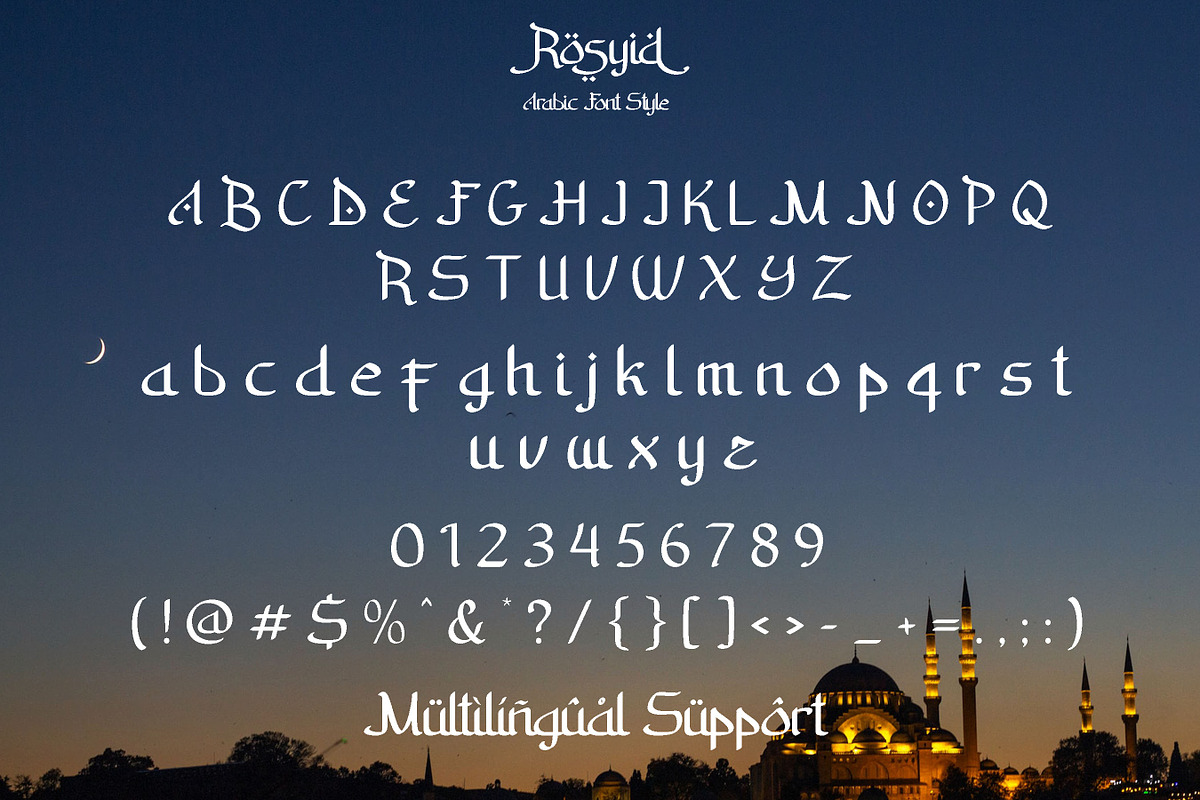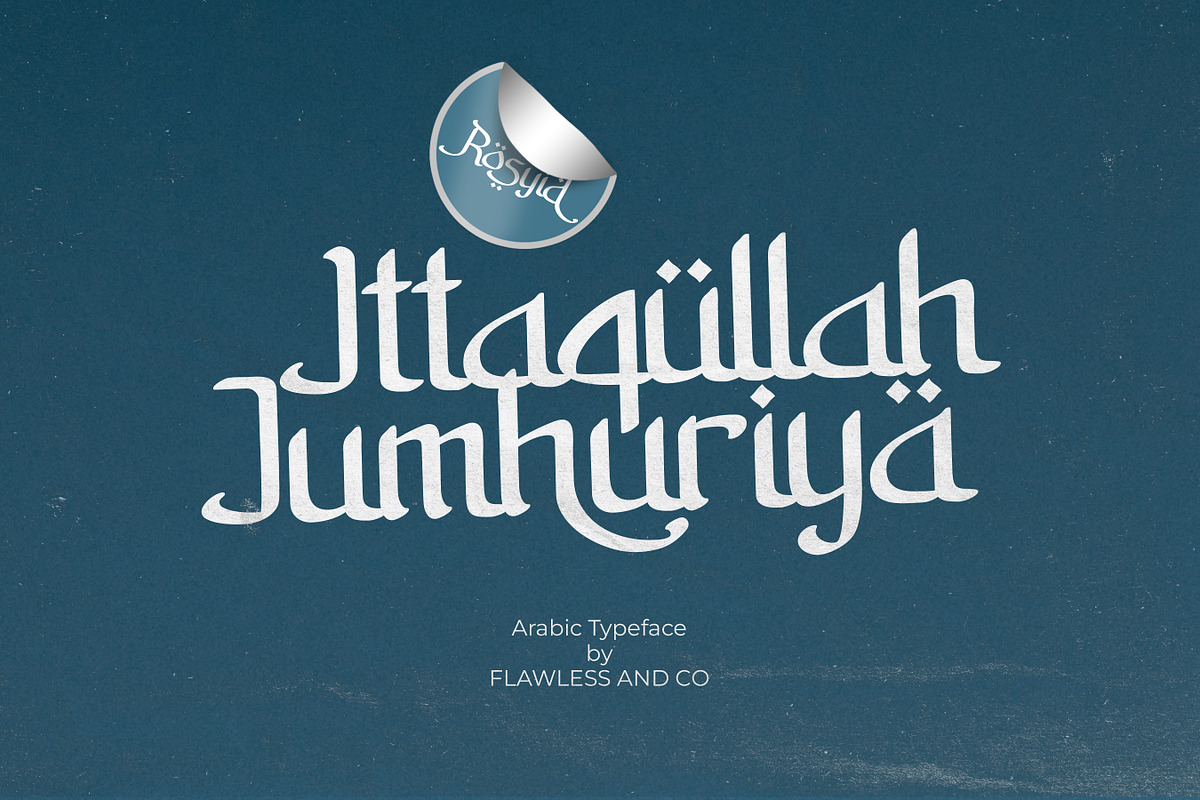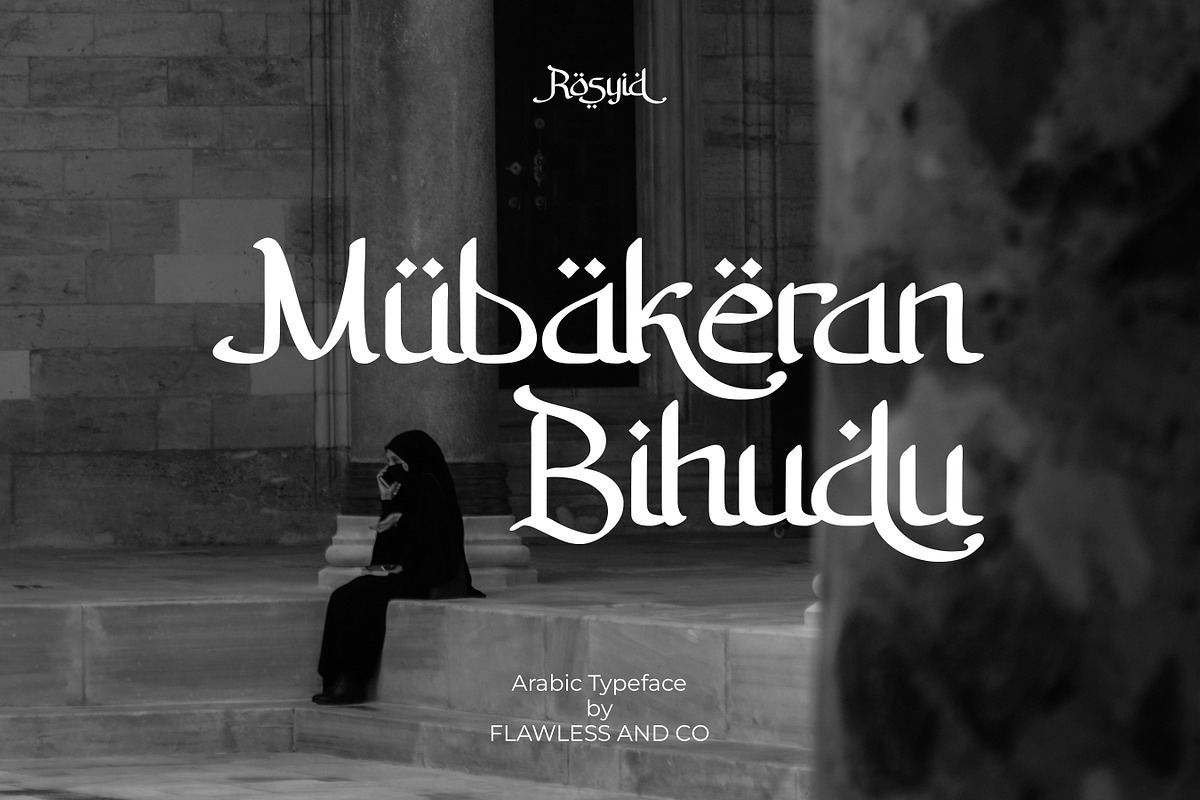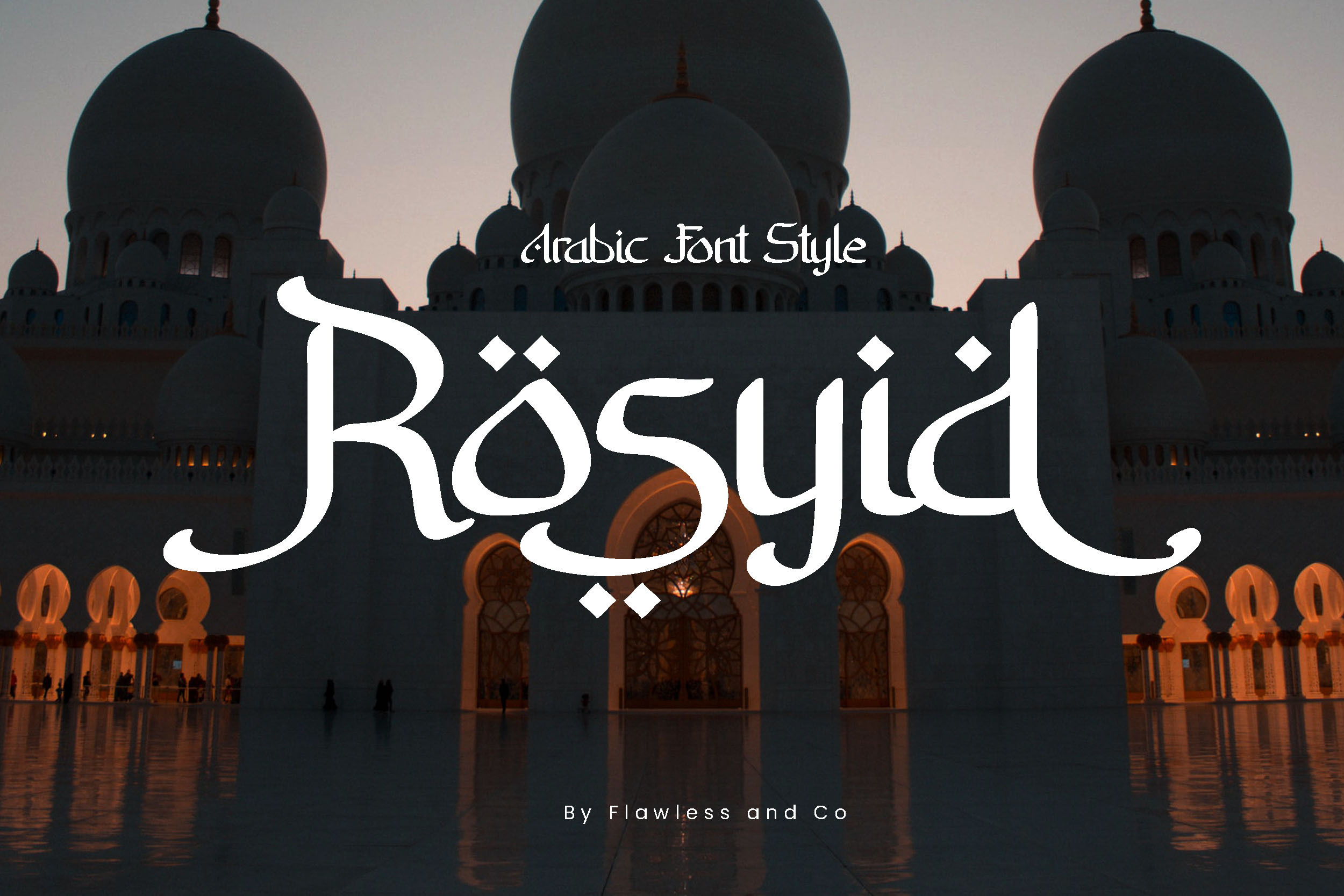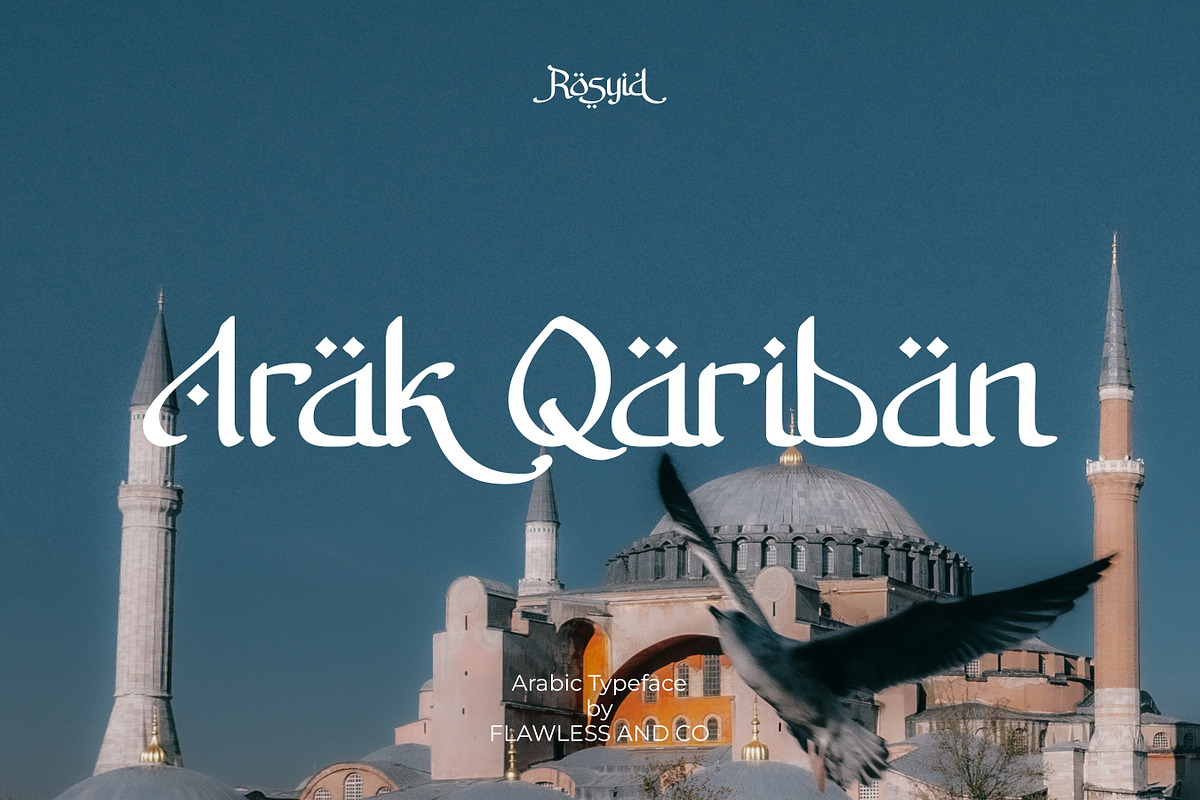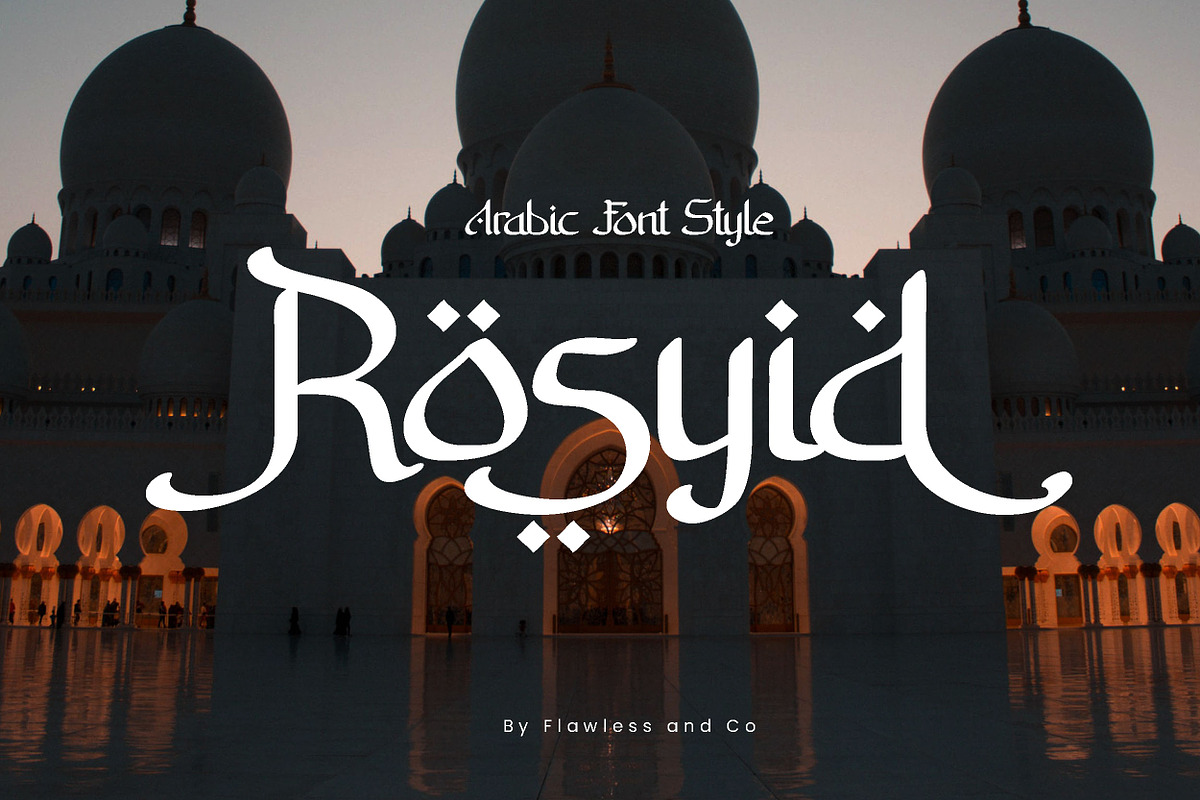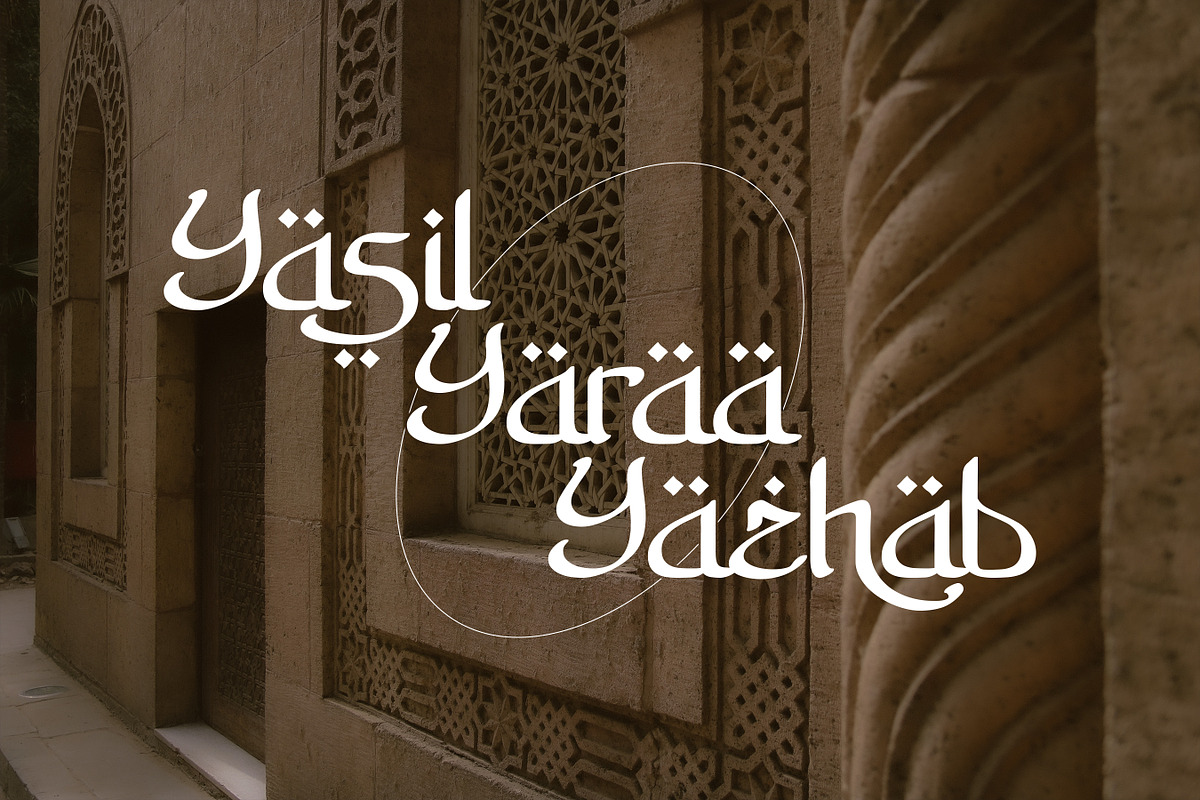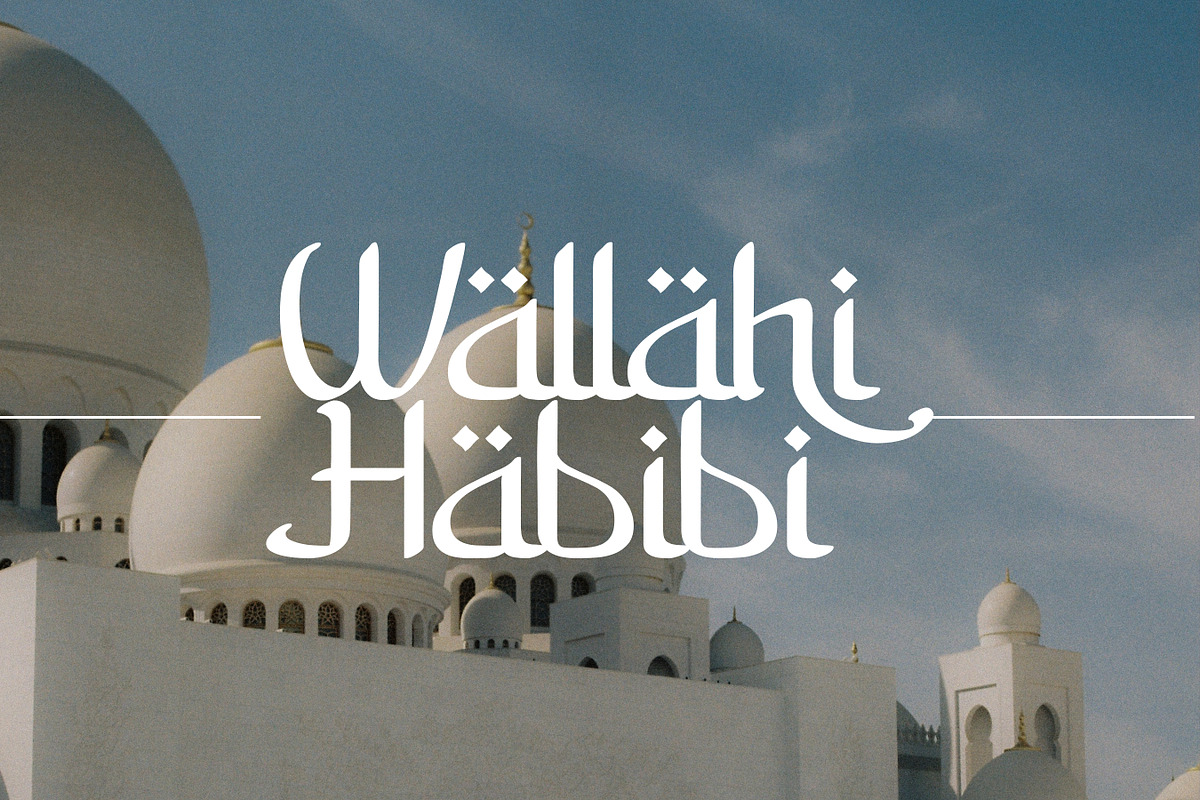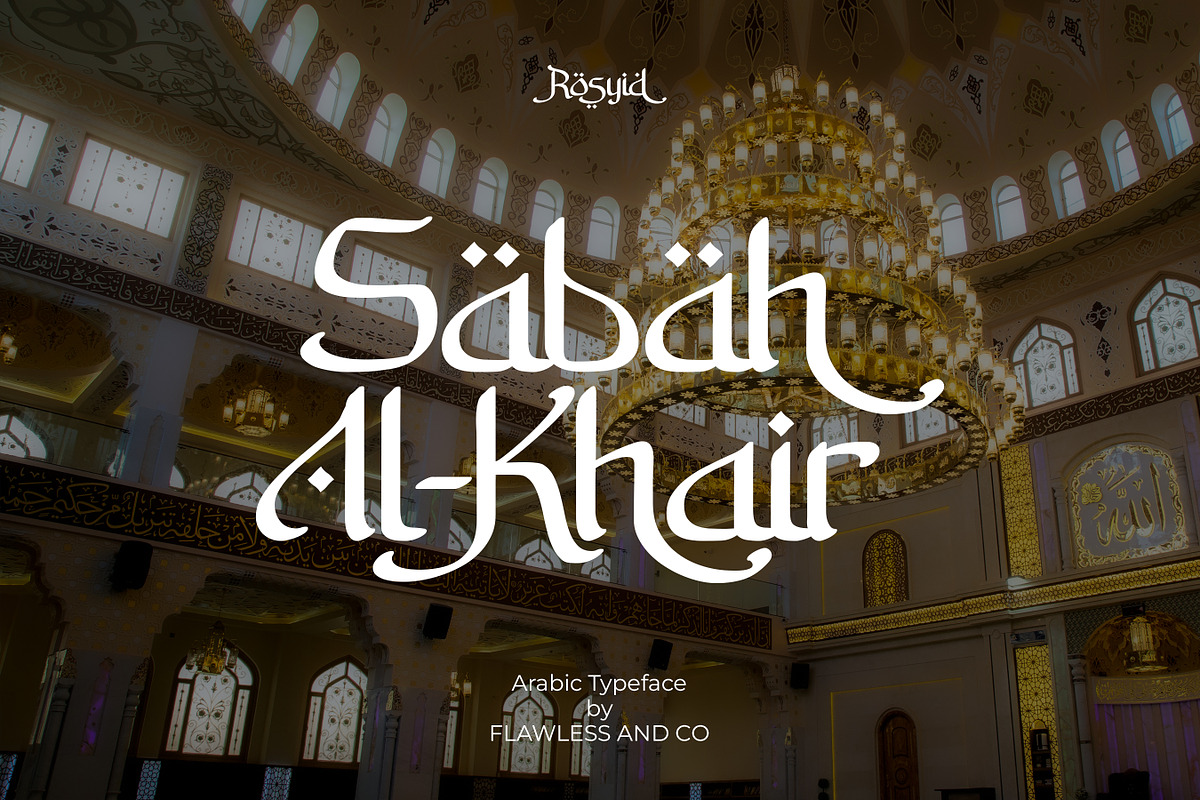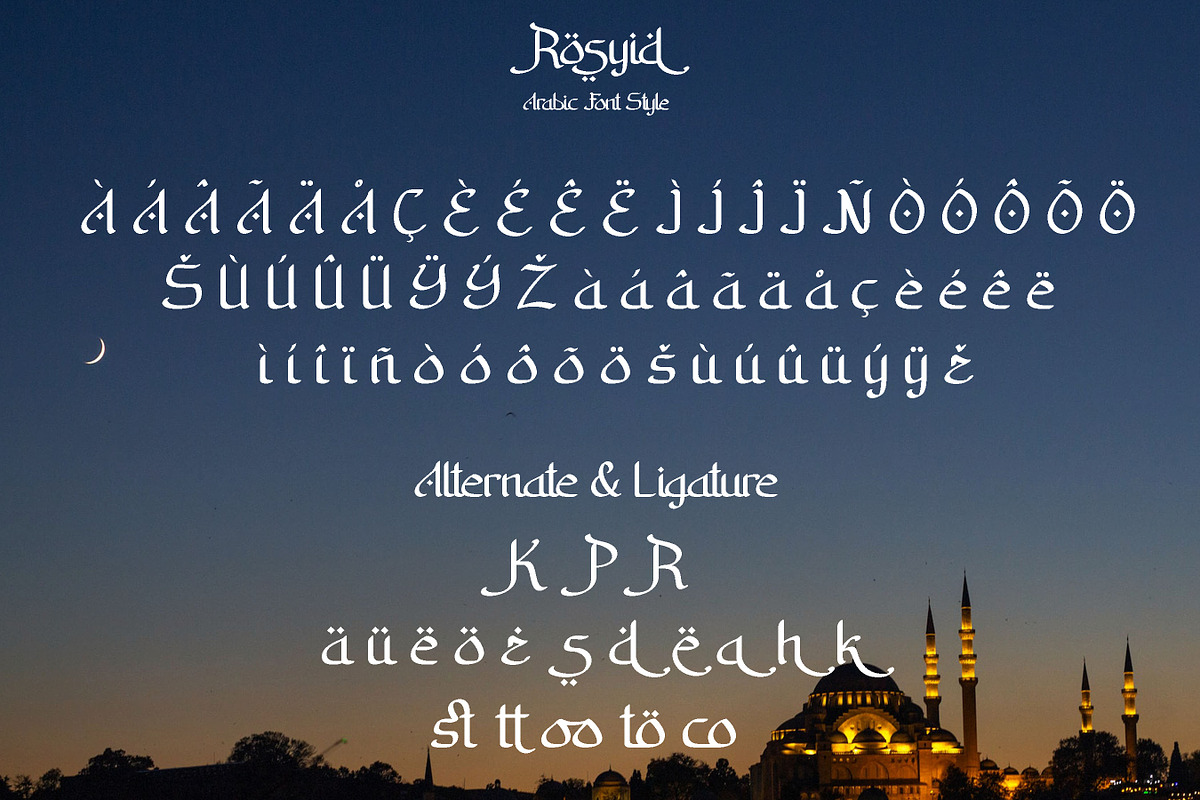
Rosyid-Arabic Font Style
Rosyid - Ramadhan Arabic Font, Challigraphy font, Religi Font, Moslem Font, Canva font, Procreate font, Cricut font, Elegant Font
Rosyid is an Arabic Font, Modern Font with Elegant Style is perfect for branding, logos, invitation, master heads, and more.
Multilingual Uppercase alphabet A-Z Lowercase alphabet a-z Alternate Character Numbers 0-9 Some punctuation